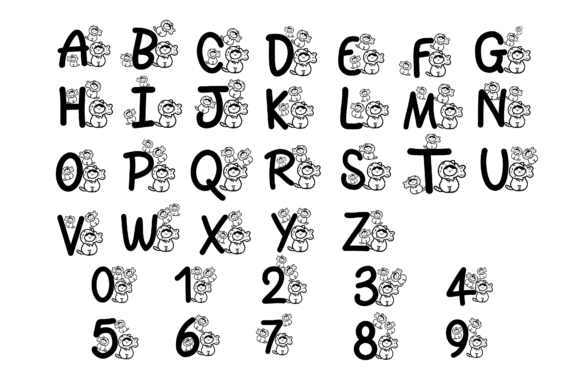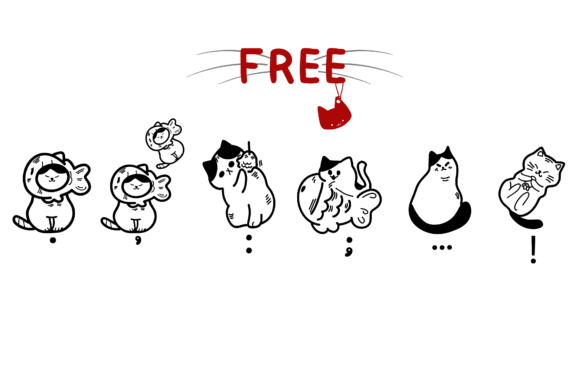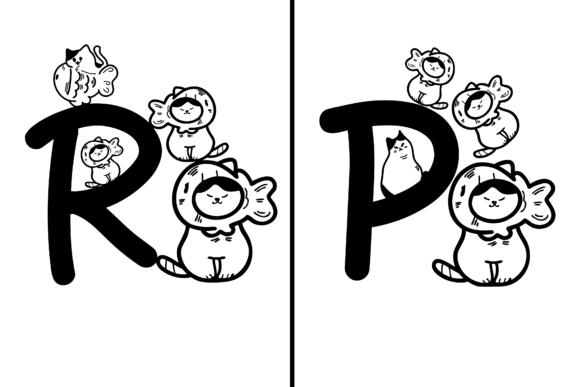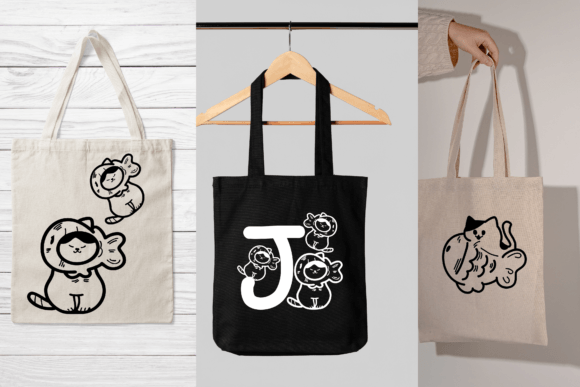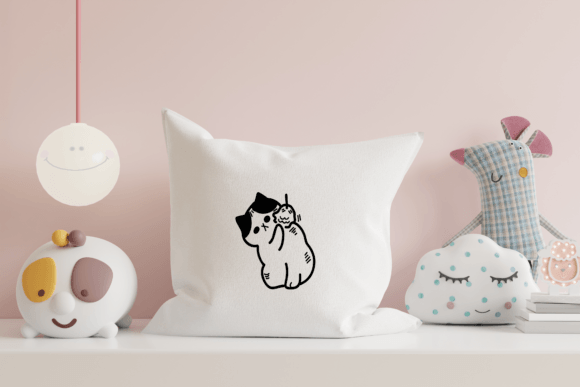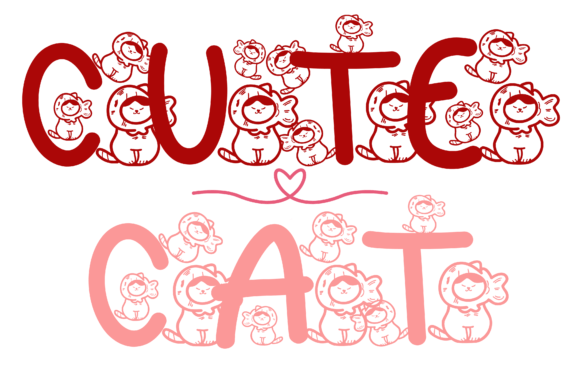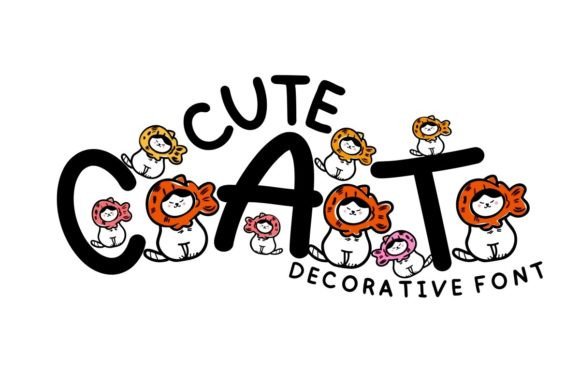
Cute Cat Font: The Purrfect Addition to Your Design Collection
Are you a designer, crafter, or simply a cat lover looking for a unique and adorable font to add to your collection? Look no further than the Cute Cat Font! This charming decorative font is perfect for a variety of creative projects, from personal notes and diaries to professional designs and marketing materials.
What is Cute Cat Font?
Cute Cat Font is a delightful, hand-crafted font designed to bring a touch of whimsy and playfulness to your designs. Its cute and endearing style is sure to capture the hearts of cat lovers and design enthusiasts alike. The font’s charming and bubbly personality makes it an excellent choice for a wide range of projects, from casual notes and greeting cards to more formal designs and marketing materials.
Uses for Cute Cat Font
The versatility of Cute Cat Font is one of its most appealing features. You can use it for:
- Taking notes: Add a personal touch to your notes and journals with this adorable font.
- Writing a diary: Make your diary entries more fun and engaging with Cute Cat Font.
- Creating greeting cards: Design beautiful and unique greeting cards for special occasions.
- Designing banners: Add a playful touch to your banners and posters.
- Crafting content: Use Cute Cat Font to create engaging and eye-catching content for your blog or social media channels.
- Personalizing mugs, cards, and shirts: Create one-of-a-kind gifts and merchandise with this charming font.
- Stationery: Design beautiful and functional stationery, such as notebooks, journals, and stickers.
- Social media posts: Add a touch of personality to your social media posts and stories.
Why Choose Cute Cat Font?
So, why should you choose Cute Cat Font for your next project? Here are just a few reasons:
- Unique and eye-catching: Cute Cat Font is sure to grab attention and set your designs apart from the rest.
- Versatile: Use it for a wide range of projects, from personal to professional.
- Easy to read: Despite its playful style, Cute Cat Font is easy to read and understand.
- Perfect for cat lovers: If you’re a cat lover or designing for a cat-themed project, this font is a must-have.
Tips for Using Cute Cat Font
To get the most out of Cute Cat Font, here are a few tips:
- Use it sparingly: While Cute Cat Font is adorable, it can be overwhelming if used excessively. Use it to highlight important information or add a touch of personality to your designs.
- Pair it with other fonts: Experiment with pairing Cute Cat Font with other fonts to create a unique and visually appealing design.
- Experiment with colors: Cute Cat Font looks great in a variety of colors, so don’t be afraid to experiment and find the perfect hue for your design.
In conclusion, Cute Cat Font is a delightful and versatile font that’s perfect for designers, crafters, and cat lovers alike. Its unique and eye-catching style makes it an excellent choice for a wide range of projects, from personal notes and diaries to professional designs and marketing materials. With its ease of use and endless possibilities, Cute Cat Font is sure to become a favorite in your design collection.